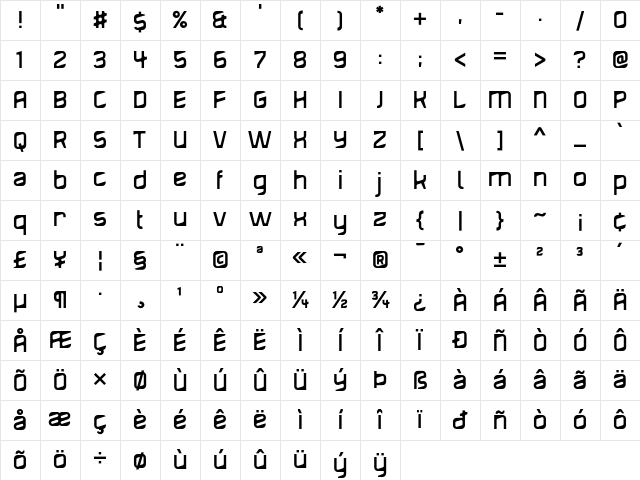
Diagond is a composed and adaptable typeface that performs quietly and consistently across a wide range of design contexts. Its bold stroke weight gives it real presence on the page.